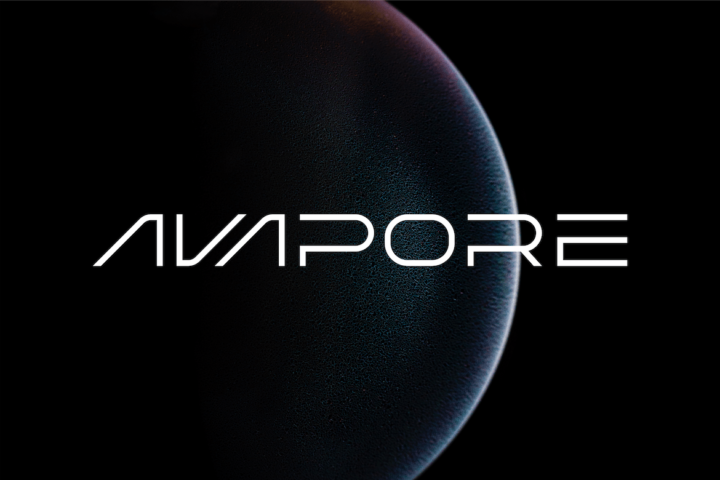
Avapore modern font
Avapore is a wide, contemporary sans serif typeface that was conceived as a branding and editorial solution. This Font was designed as a versatile and flexible that can be used on a range of projects and mediums.